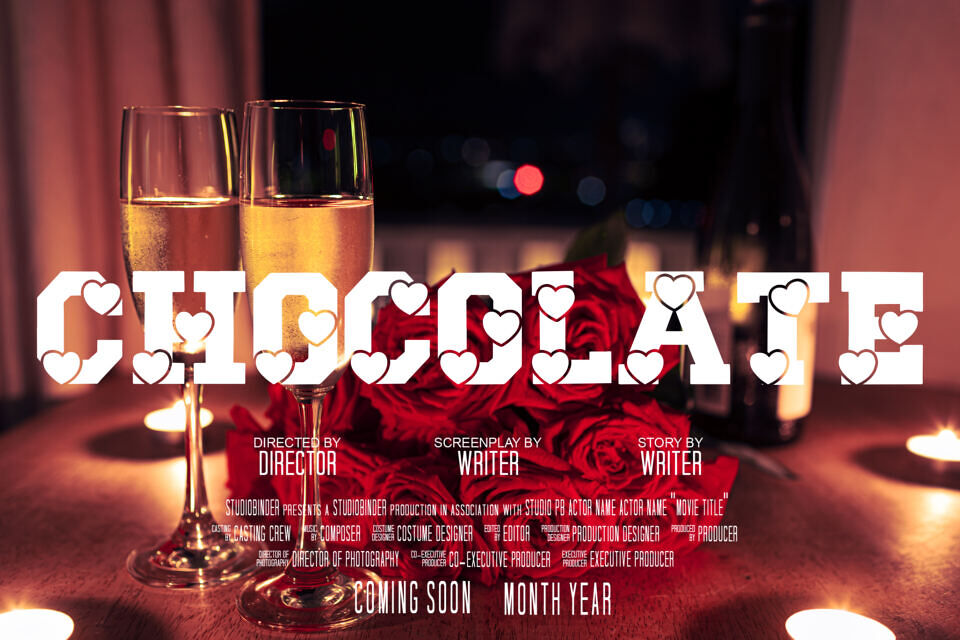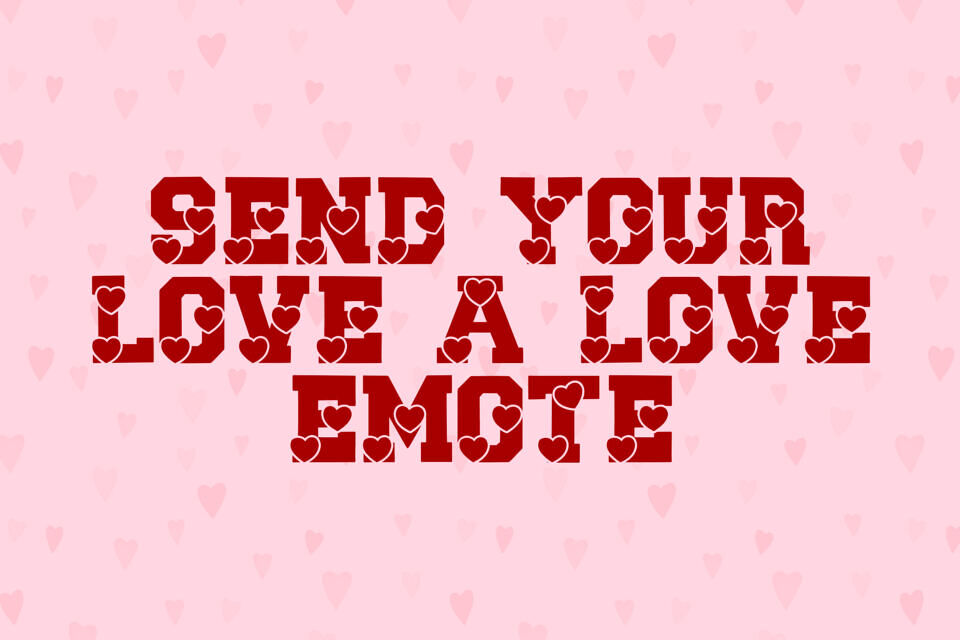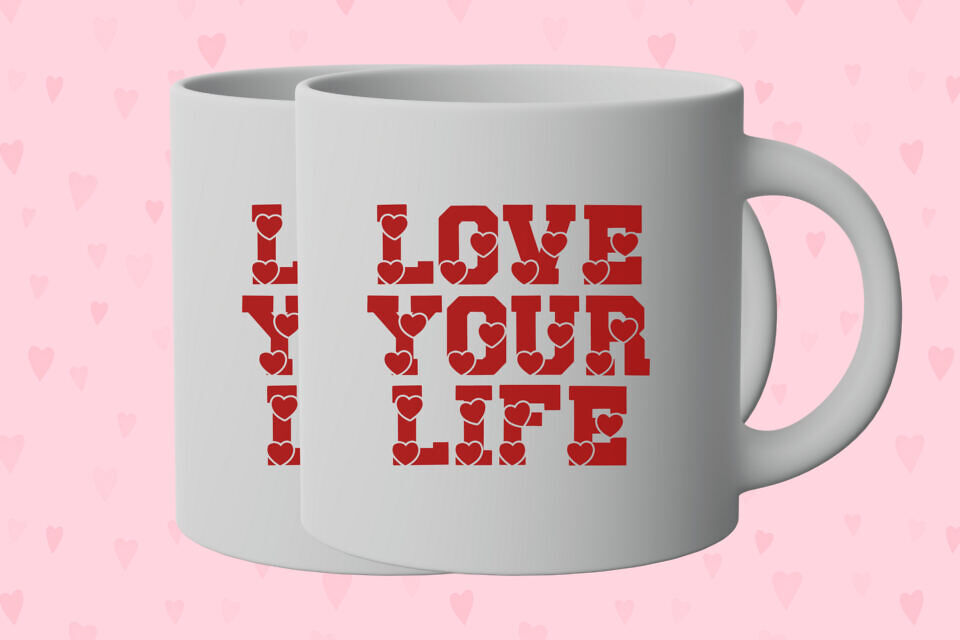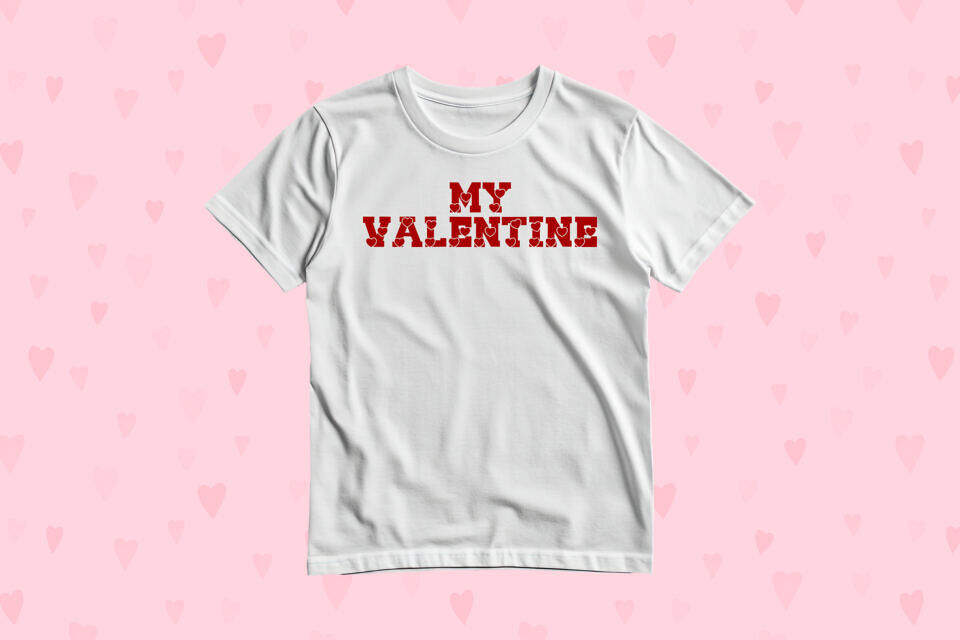
Scholar Valentine is a bold and charming Valentine varsity font that combines the structured confidence of college lettering with a heartfelt romantic flair. Perfect for creating designs that celebrate love with strength and personality, this typeface is ideal for Valentine’s Day cards, apparel, classroom activities, social posts, event signage, and heartfelt packaging.
Styled with clean, strong lines and soft curves, Scholar Valentine stands out in both print and digital design. It brings a sweet yet bold energy to any project, making it the perfect choice for expressing affection in a fun and collegiate way. Whether you’re creating romantic T-shirts, classroom bulletin boards, wedding signage, or festive Valentine’s Day promotions, this font delivers with impact and clarity.